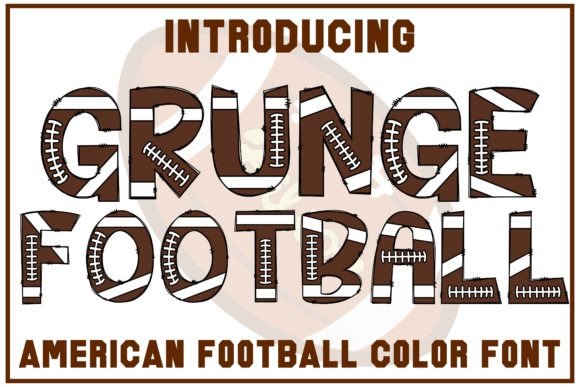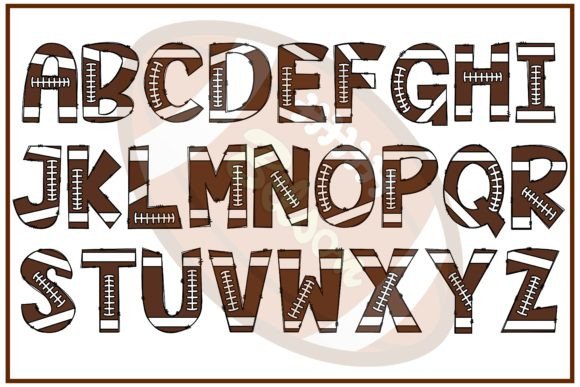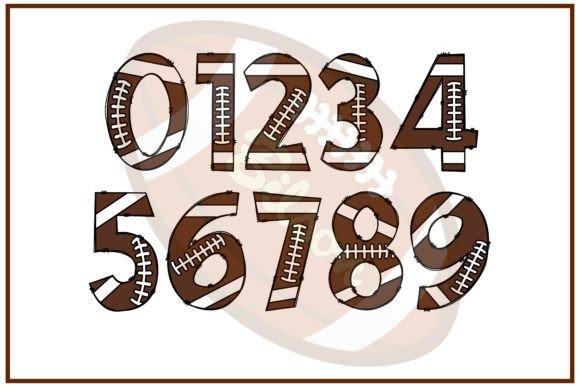
Grunge Football Font
Grunge Football is a cool and unique color font that adds a touch of edginess and style to your sports-related designs. Whether you’re creating designs for football teams, sports events, or any other sports-related projects, this font offers endless possibilities to make your designs stand out.
With its grunge-inspired design, Grunge Football brings a raw and rugged aesthetic to your typography. The color font feature allows you to incorporate vibrant colors and textured effects into your designs, adding depth and visual interest.
When using Grunge Football, consider the context of your design and how the font can enhance the overall theme or message. It’s particularly well-suited for sports-related designs, including team logos, jerseys, posters, banners, social media graphics, and more. The grunge texture and bold letterforms of the font add a sense of energy and dynamism to your compositions.
Experiment with different color combinations and layering techniques to create custom effects with Grunge Football. Play with various design elements such as textures, patterns, and images to complement the font and create a cohesive visual style.
Let your creativity run wild and explore the possibilities that Grunge Football offers. Embrace its cool and unique style to elevate your sports-related designs and make a statement. Have fun designing and enjoy the process of creating with this dynamic color font!